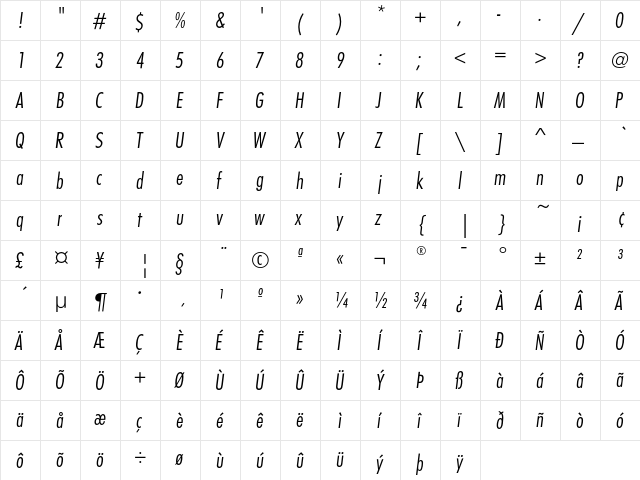
FuturaEF LightCondObl Font Preview
Design Context for FuturaEF Typeface
FuturaEF channels digital-age aesthetics through its sharp, structured letterforms — ideal for brands that want to signal innovation. The delicate stroke weight brings airiness and refinement to layouts. The condensed width makes it efficient for tight spaces without sacrificing legibility.